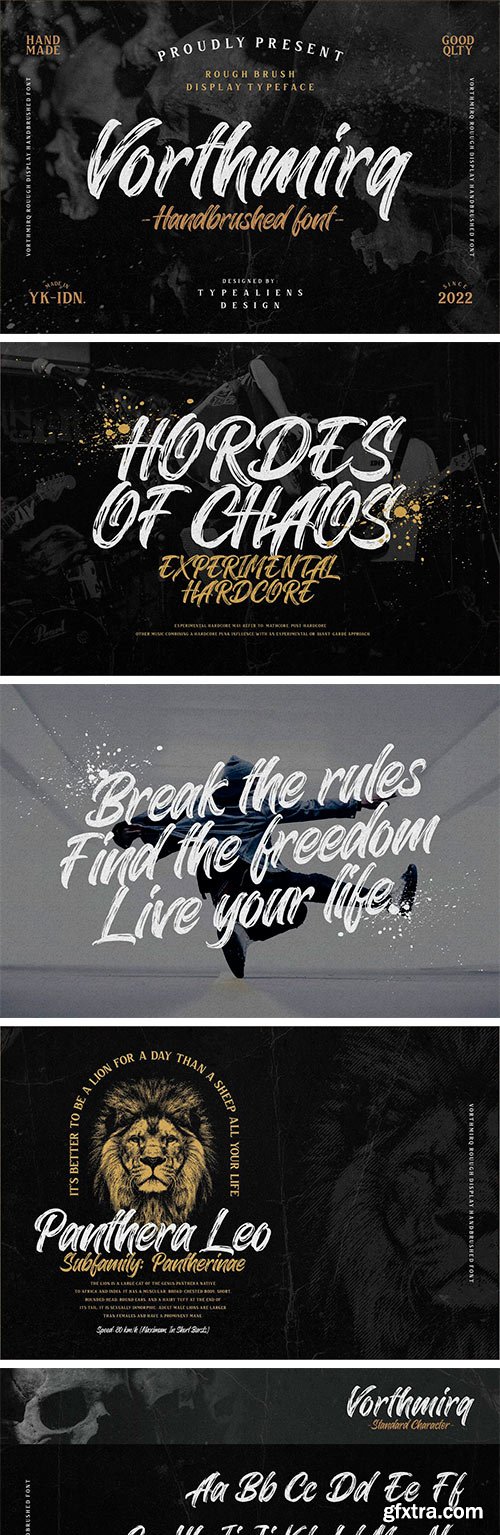
Vorthmirq is a script display font with a texture brush, a font that is basically made from digital calligraphy, so it feels very thick with the calligraphy style using a brush on this font. Fonts that are suitable for modern designs such as youth fashion, skateboard brands, quotes, etc. This script font with a texture brush makes this font flexible because it doesn't look feminine, making it easy to apply to non-feminine designs.